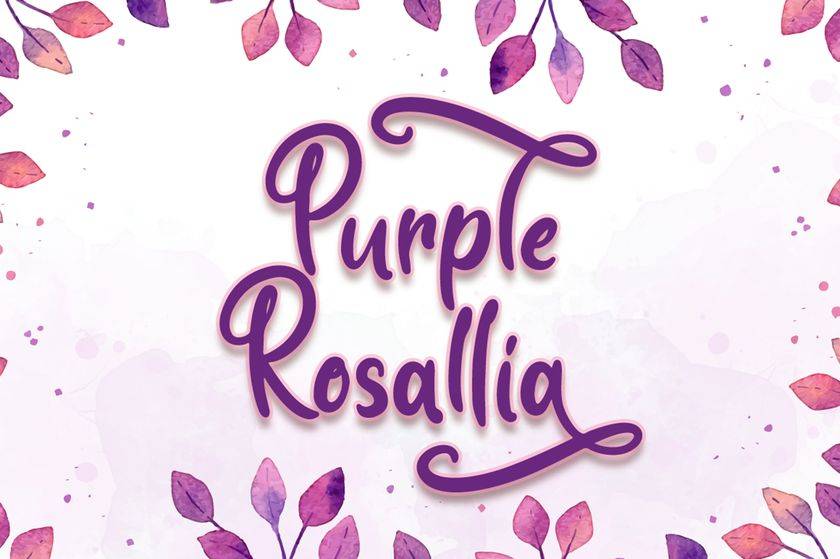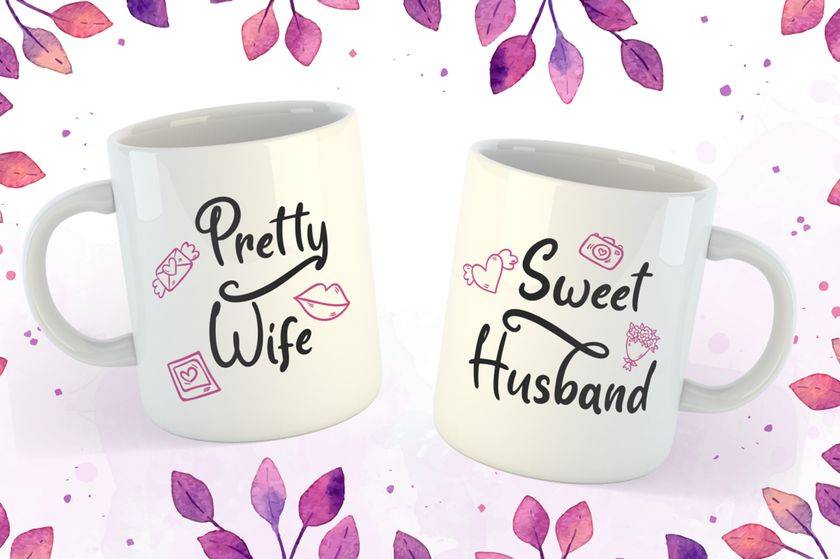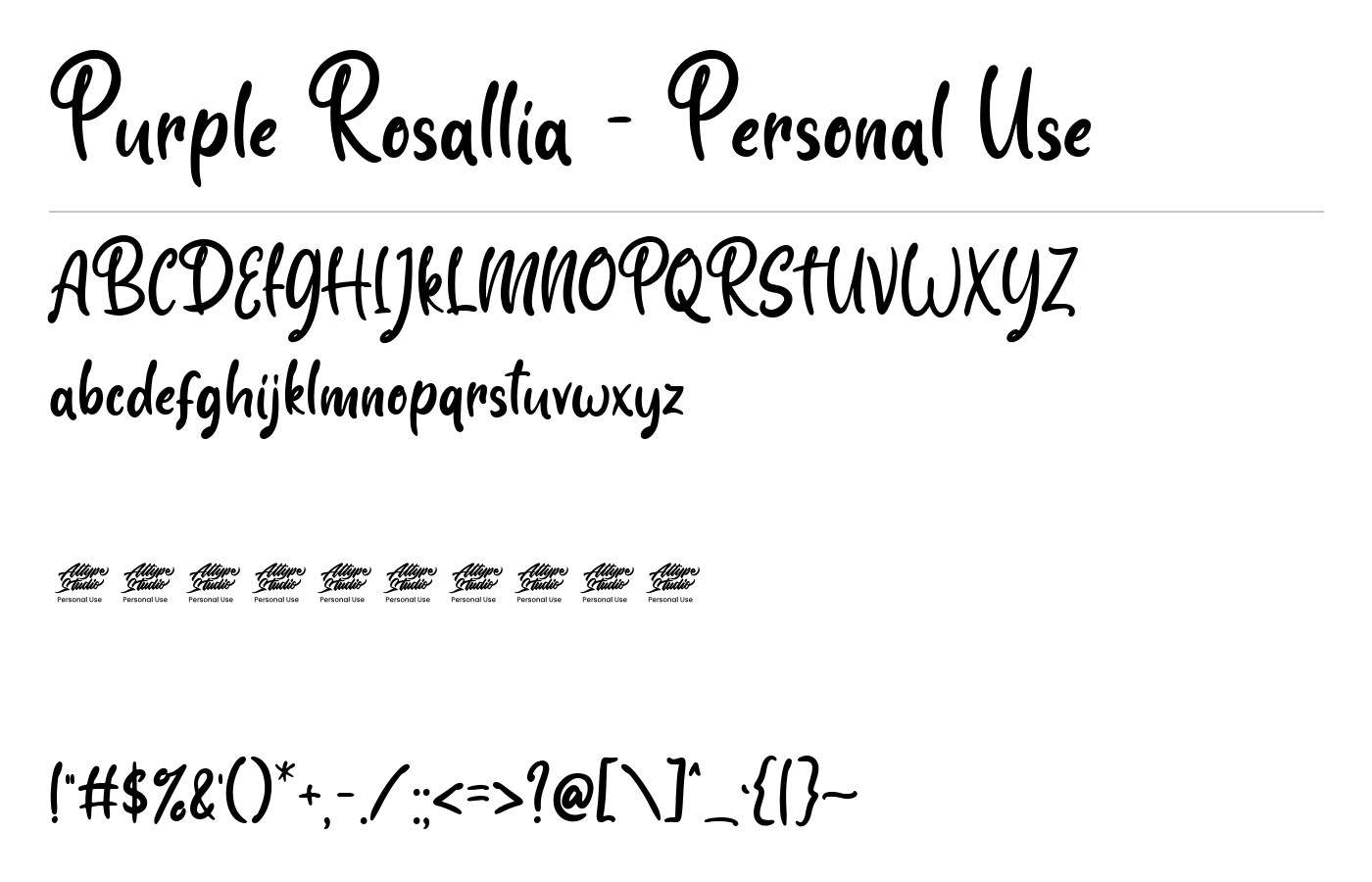
Purple Rosallia is a playful and casual script font with a hand-drawn feel, featuring smooth, rounded strokes and moderate contrast that create an inviting, friendly atmosphere. Its tall x-height and flowing letterforms make it perfect for personal projects, greeting cards, and informal branding where a warm, approachable style is desired. This font works well in headlines and decorative text, adding personality without sacrificing readability.
Purple Rosallia Font
About Purple Rosallia Font
| Font family | Purple Rosallia Font |
| Designer | Fadli Ramadhan Iskandar |